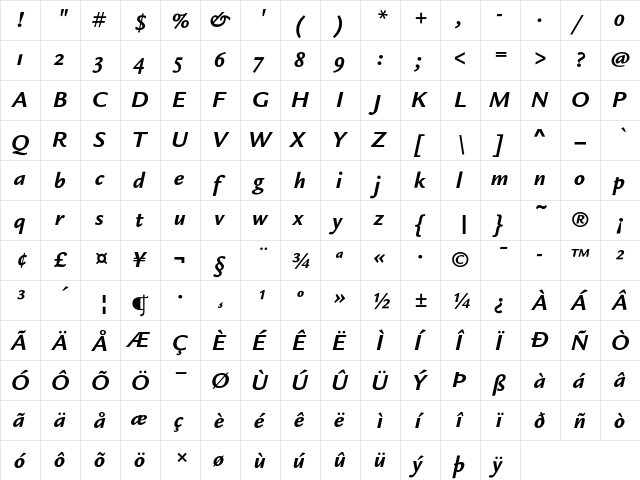
Legacy Sans ITC Bold Italic OS
Design Context for Legacy Sans ITC Typeface
Legacy Sans ITC is a composed and adaptable typeface that performs quietly and consistently across a wide range of design contexts. Its italic angle brings a sense of urgency and motion to the letterforms. Its bold stroke weight gives it real presence on the page.
Pro Tip: Try Legacy Sans ITC for annotation and caption copy alongside an upright companion — the contrast in angle creates a dynamic but ordered typographic system.